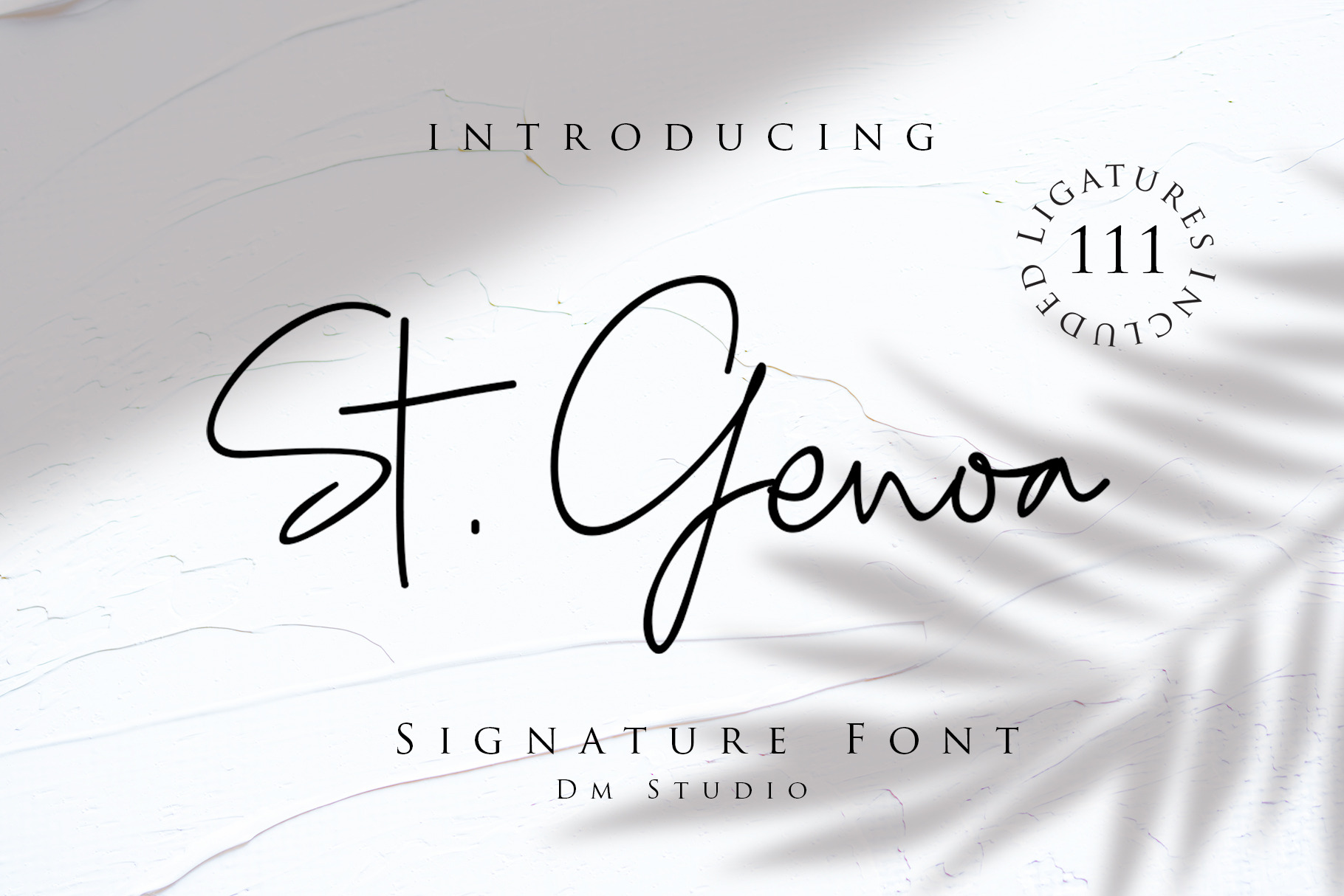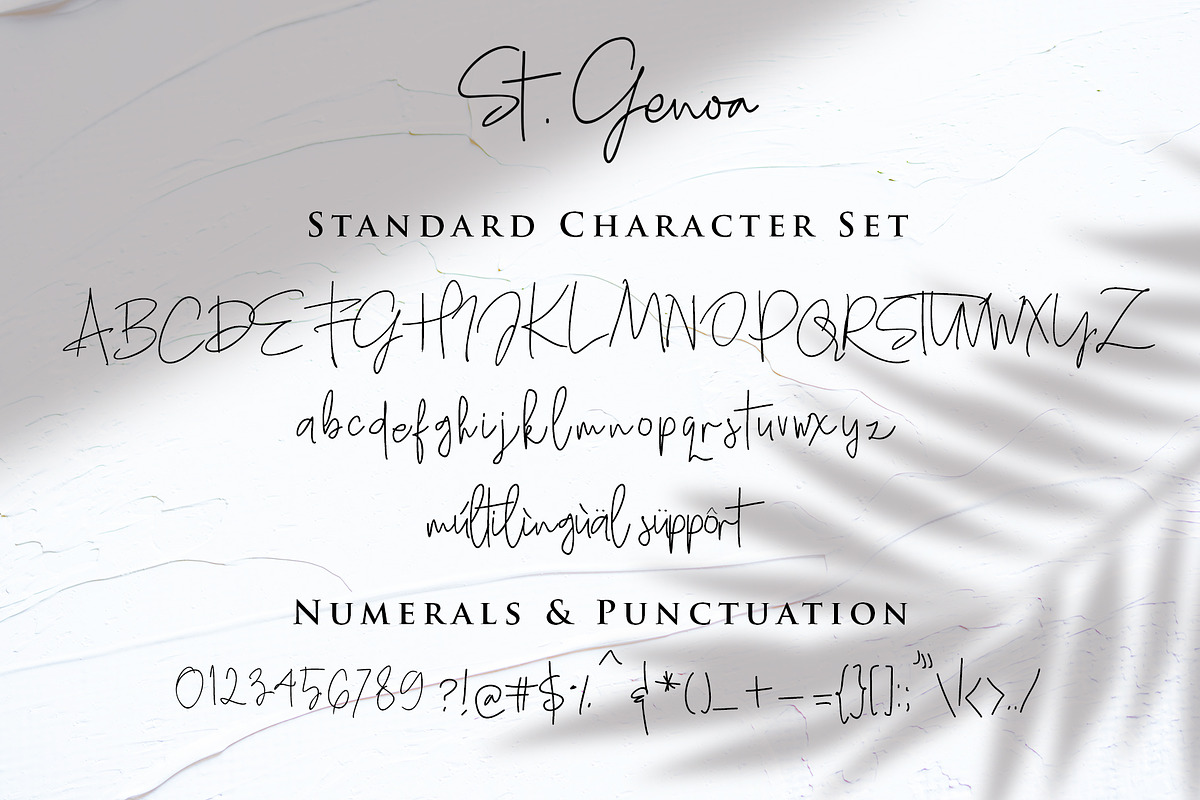
St Genoa - Signature Font
Introducing St. Genoa, a Signature Font. The clean and naturally handwritten font that will give an elegant looks on your design, such as logo branding, business card, website headers, quotes, flyers, posters, merchandises or even for your social media posts.
St. Genoa Signature Font comes with standard character set in Uppercase and lowercase, numerals, and punctuation. Also we have added extra 111 handwritten ligatures and has support the multilingual characters that will make you feel easier in creating your project.